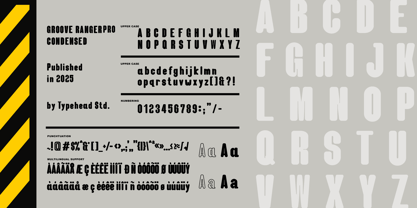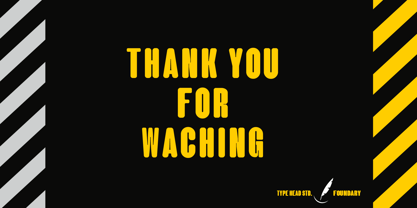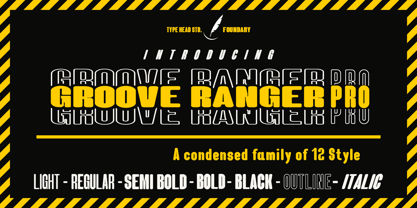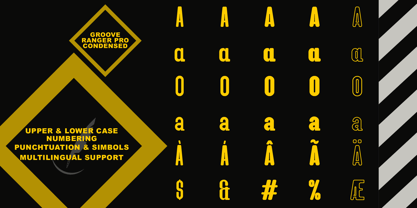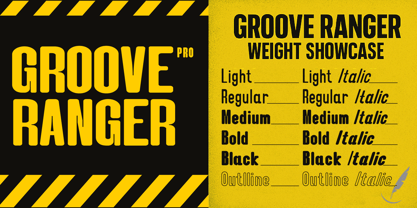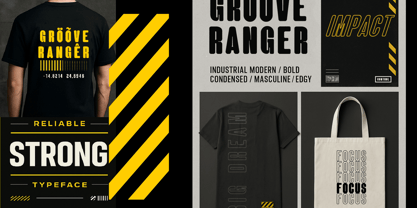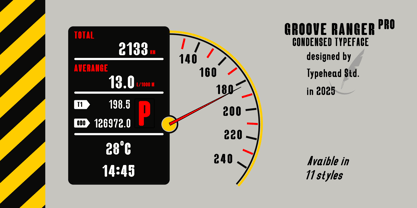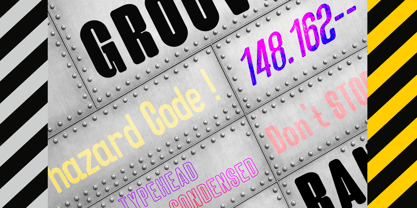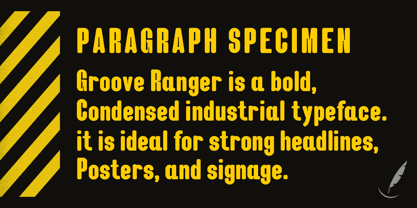
Groove Ranger Pro
von Typehead Studio
Die Schriftfamilie Groove Ranger Pro wurde von Gatot Triardi Pramaji entworfen und von Typehead Studio veröffentlicht. Groove Ranger Pro enthält 12 Stile und Familienpaketoptionen. Mehr über diese Familie
Groove Ranger Pro is a modern condensed family built for clarity, confidence, and strong visual rhythm. Designed with balanced proportions and smooth curves, this typeface delivers clean readability across branding, editorial layouts, packaging, digital interfaces, and large-scale display work. Whether you need a reliable workhorse for long text or a bold headline presence, Groove Ranger Pro brings consistency and character in every weight. With 12 carefully crafted styles—including Light to Black, matching Italics, and two Outline variants—this family gives designers complete flexibility to build expressive typography systems. Each style is drawn with precise spacing and modern geometry, ensuring solid performance in logos, posters, websites, mobile apps, and print materials. The italic styles add a dynamic forward motion, while the Outline versions introduce a strong display personality that stands out instantly. Groove Ranger Pro supports extensive multilingual characters, making it suitable for global branding and cross-platform use. Clean curves, strong legibility, and versatile weight options make this family a dependable choice for creative professionals. Whether you're designing bold titles, elegant subtitles, or functional UI text, Groove Ranger Pro is ready to elevate your project with sharp, modern typography.
Designer: Gatot Triardi Pramaji
Foundry: Typehead Studio